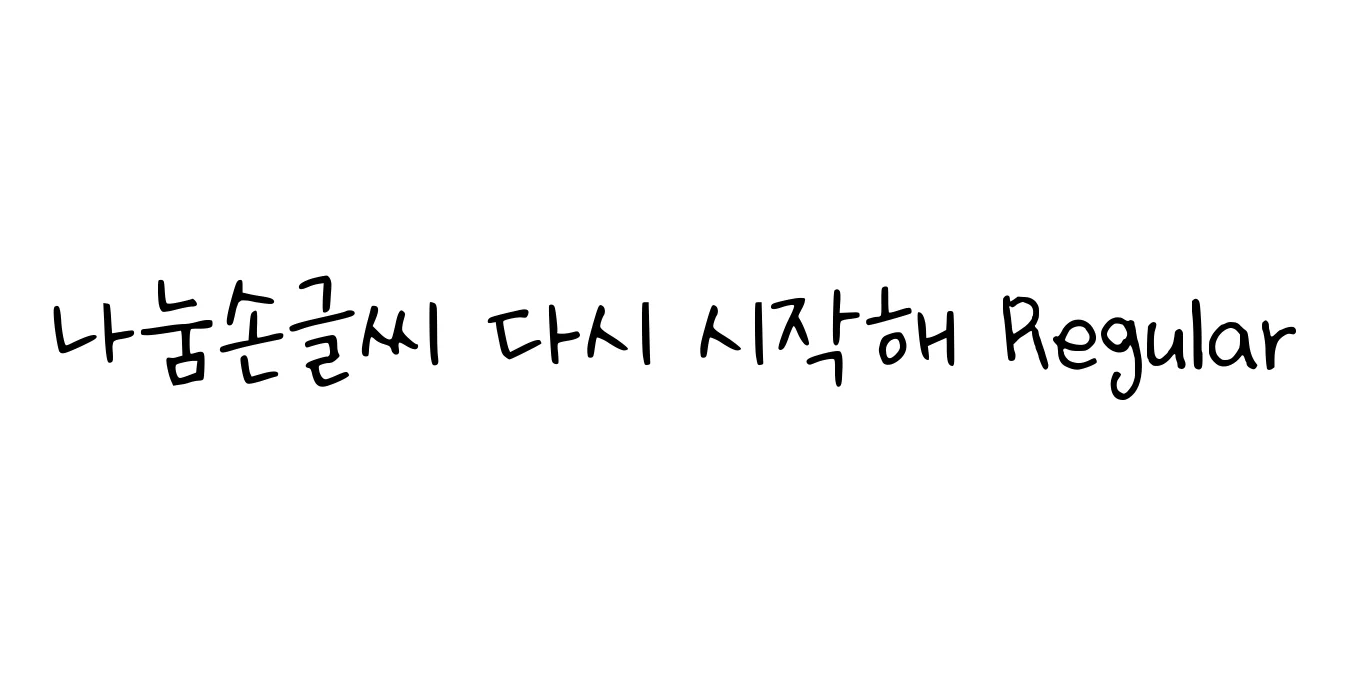
나눔손글씨 다시 시작해 Regular
Designed by Naver Corporation
나눔손글씨 다시 시작해 (Nanum Handwriting 'Dasi Sijakhae') is one of the 109 types of handwriting fonts released by Naver in 2019 to celebrate the 573rd Hangeul Day. This font was created using Clova AI technology, which analyzed and replicated the handwriting submitted by a user. The name 'Dasi Sijakhae' translates to 'Start Again,' conveying a sense of hope and new beginnings through its rhythmic and natural strokes.
This font captures the essence of human penmanship, featuring organic variations in stroke pressure and fluid connections between characters. It is particularly valued for its high legibility despite being a handwriting style, making it a versatile choice for digital content that seeks to convey warmth, sincerity, and a personal touch without sacrificing readability.
나눔손글씨 다시 시작해 Regular Best Uses
Perfect for creating relatable and emotional quotes or story posts on Instagram.
Ideal for use in digital planners, journals, and personal notes for a hand-written feel.
Great for posters or greeting cards that require a friendly and approachable human touch.